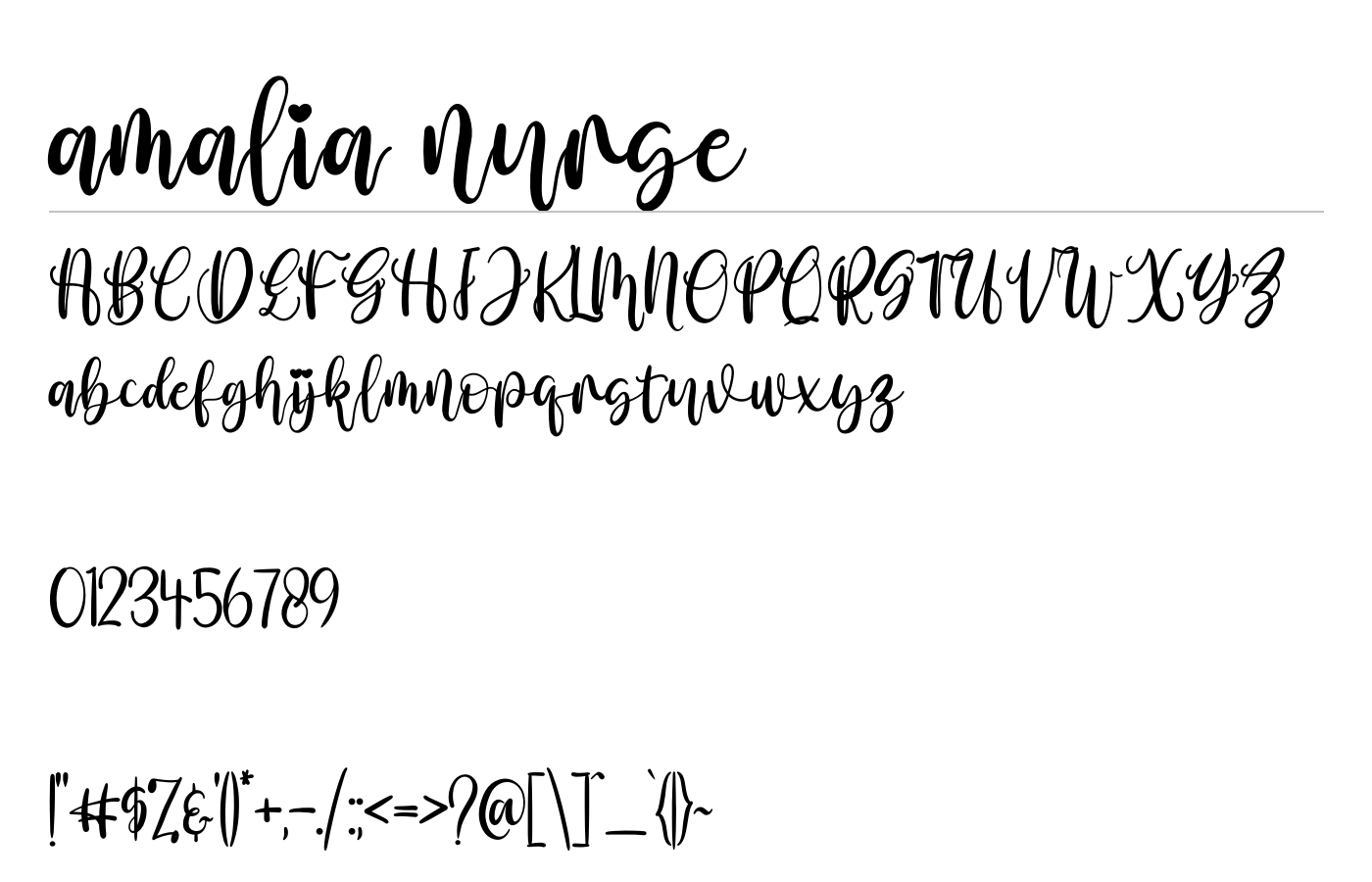
Amalia Nurse is a playful, hand-drawn script font with a lively and whimsical personality, featuring smooth, flowing strokes and charming details like heart-shaped dots. Its tall x-height and varied stroke widths give it a friendly, approachable feel, making it perfect for creative branding, invitations, and any design needing a personal, heartfelt touch. This font works especially well in logos, packaging, and headlines where an informal, warm, and expressive style is desired.
amalia nurse Font
About amalia nurse Font